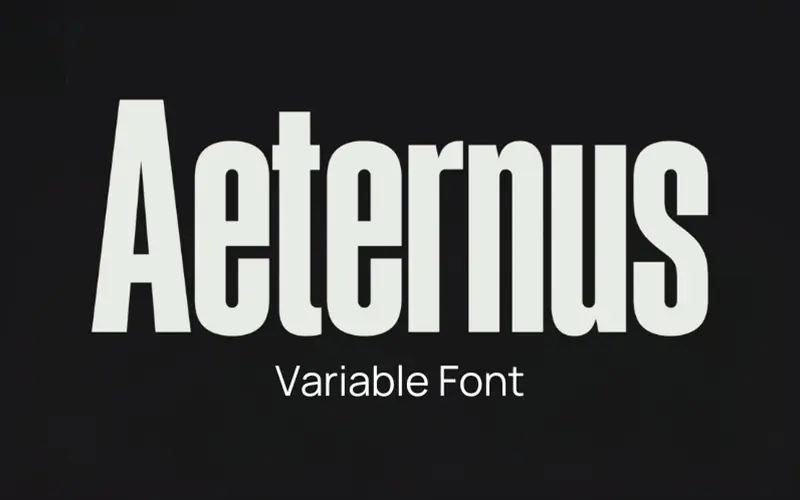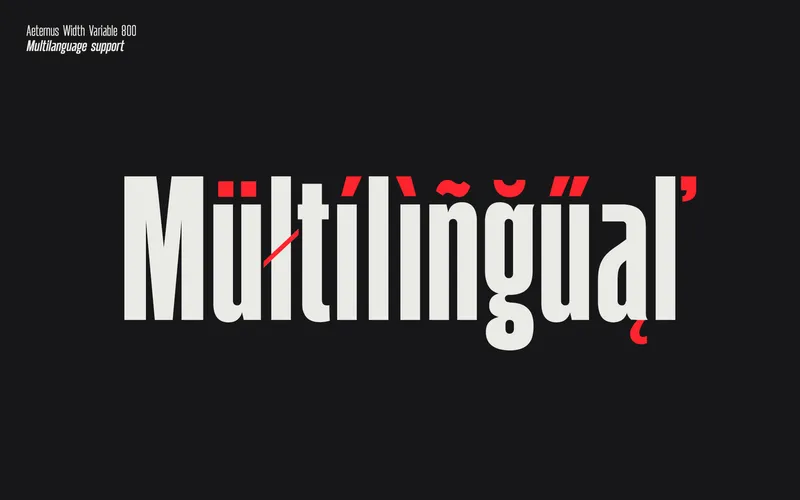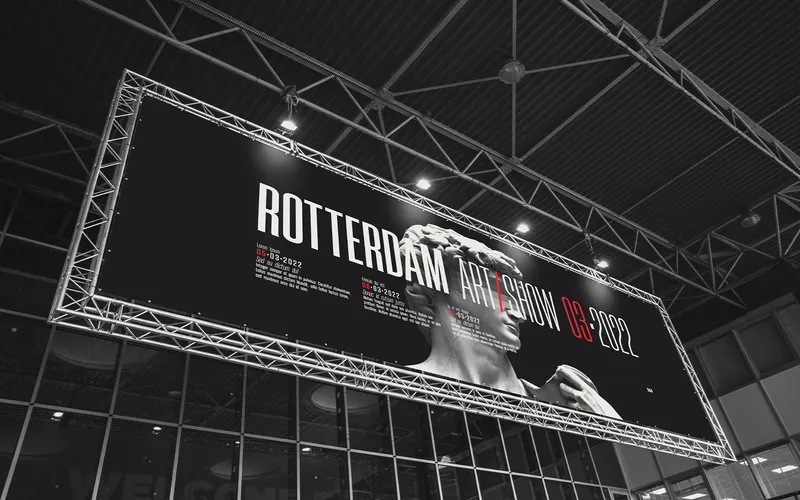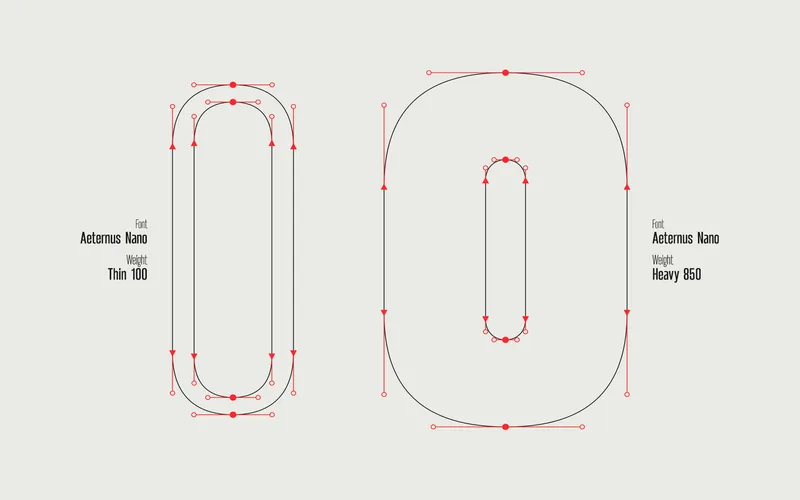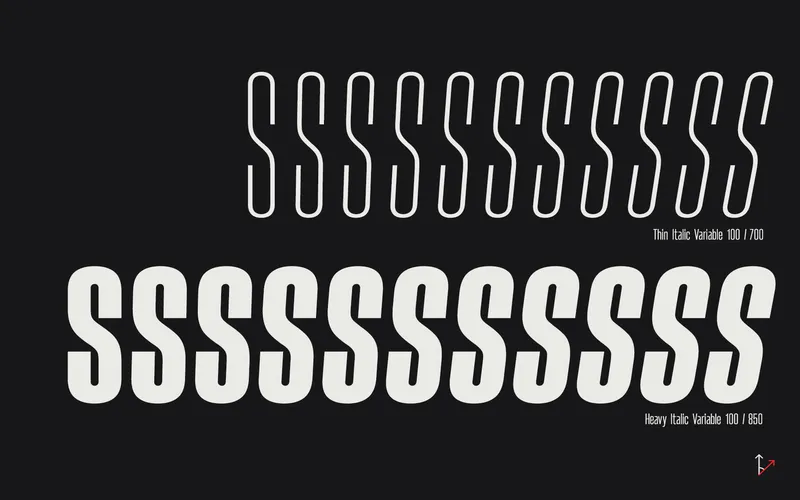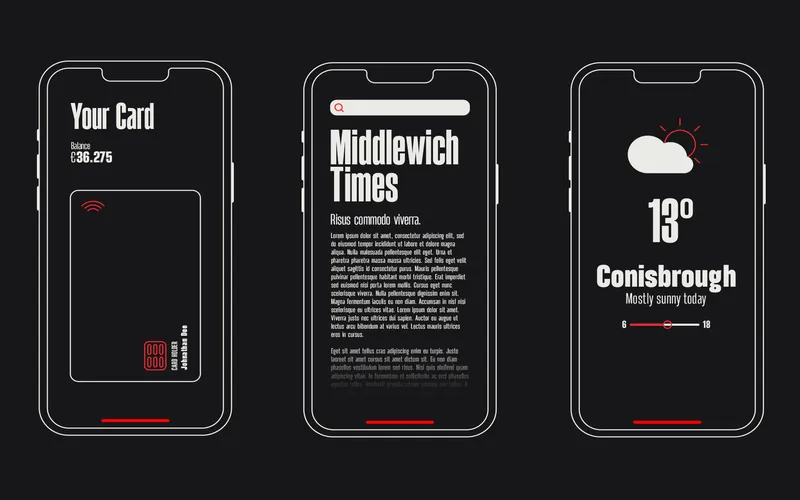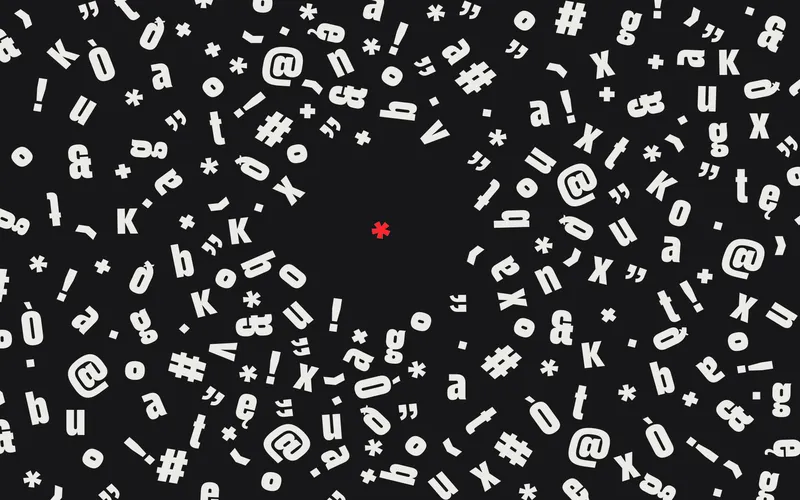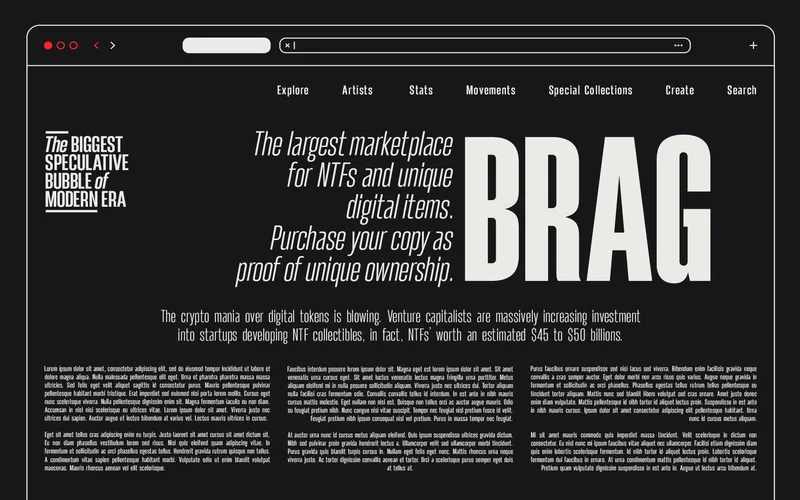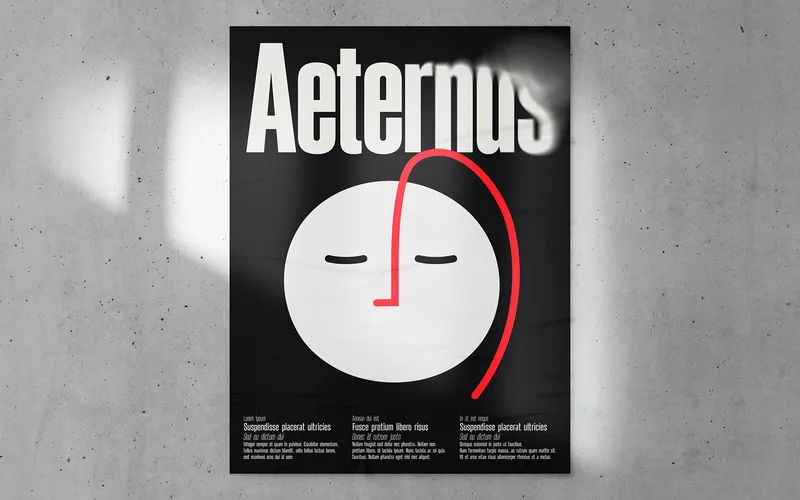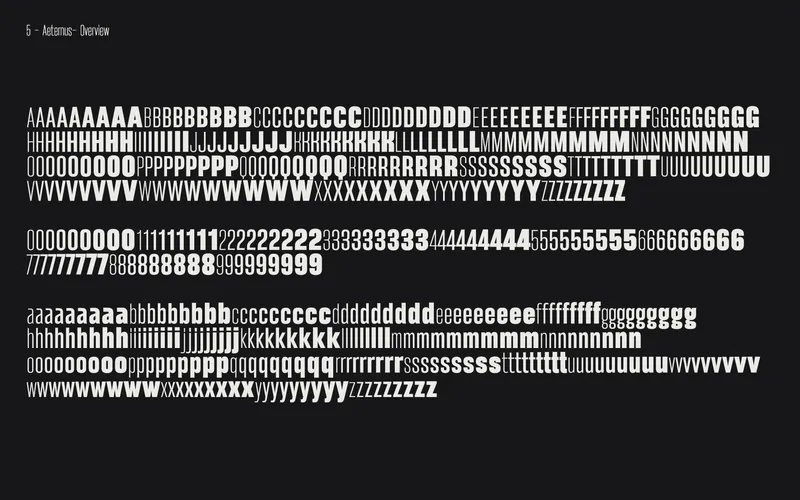
Aeternus Variable Font
Aeternus is a clean and modern sans-serif font in TTF. This font is available in two different weights and heights.
The Sans Serif Font Aeternus Comes With:
- Aeternus Nano – Weight
- Aeternus Tall – Weight
- Aeternus Thin – Height
- Aeternus Heavy – Height
All with corresponding italics.
- Aeternus – Sans Serif Variable Font
- Available in 2 different heights and weights
- Supports Central, Eastern, and Western European Languages